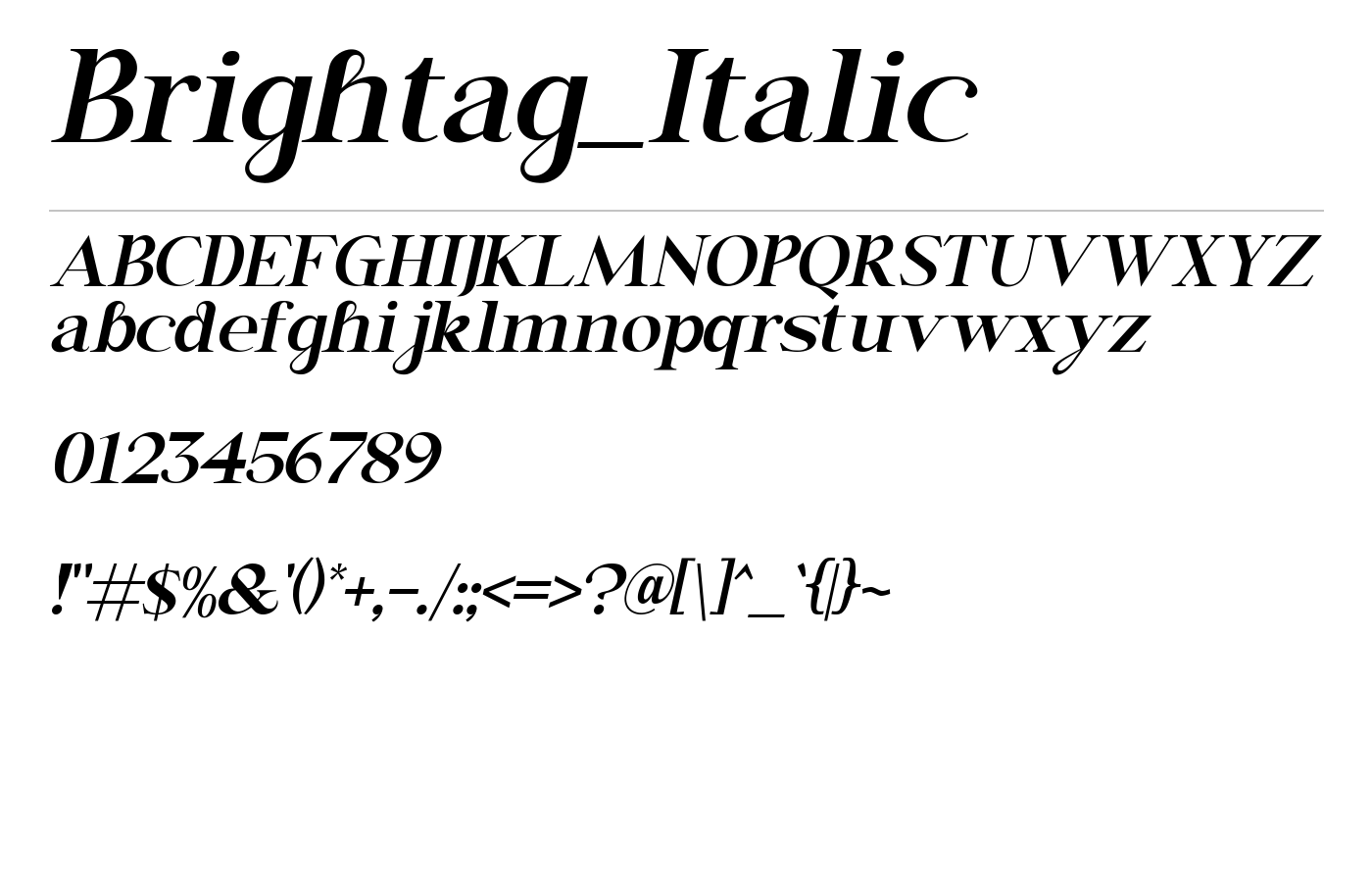
Brightag is an elegant serif font with a classic, refined style characterized by its high contrast between thick and thin strokes and delicate, slightly bracketed serifs. Its italic form features graceful, flowing letterforms with a moderate x-height, making it perfect for sophisticated editorial design, luxury branding, and stylish headlines that demand a timeless and polished look. This font combines readability with elegance, making it ideal for projects seeking an upscale yet approachable personality.
Brightag Font
About Brightag Font